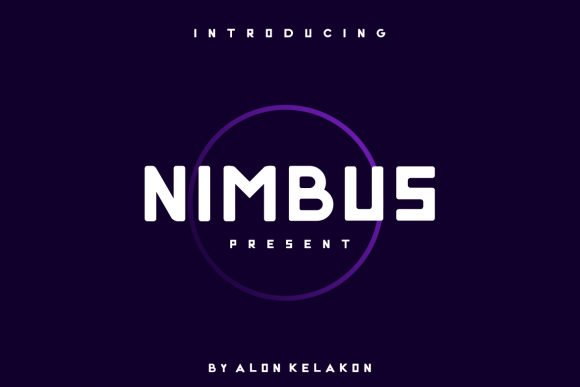
Head into the creative abyss with Nimbus Font, an awe-inspiring display font that will make your designs explode with audacious charm. Crafted by the ingenious mind of alonkelakon, Nimbus Font is not just a font; it's an artistic gateway to a world where your imagination reigns supreme.
Step into the realm of boundless creativity with Nimbus Font. This display font is a visual symphony that dances across your screen, captivating your senses with its thick, bold strokes that leave an indelible mark. Its captivating curves and sharp edges create a mesmerizing contrast that transforms your designs into masterpieces of visual art.
Whether you're crafting posters that demand attention, flyers that ignite excitement, or prints that leave a lasting impression, Nimbus Font is your trusted companion. Its bold presence ensures that your words don't just speak—they roar with confidence and individuality.
Dive into the infinite possibilities of Nimbus Font. It's the perfect choice for those who dare to stand out, to make a statement, and to leave an unforgettable mark on the world. Unleash your creativity and watch as Nimbus Font elevates your designs to dizzying heights.
Immerse yourself in the brilliance of Nimbus Font and let your imagination soar. Transform your designs into captivating works of art that capture hearts and ignite minds. Don't settle for ordinary fonts; embrace the extraordinary with Nimbus Font and elevate your creations to new heights.